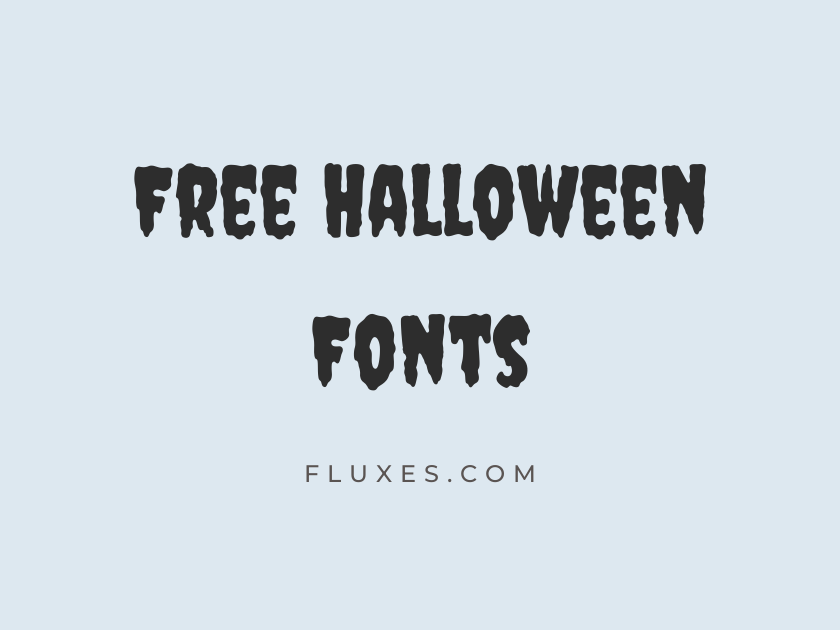
65 Best Free Halloween Fonts
Halloween design lives or dies on typography. A pumpkin graphic or a bat silhouette only gets you halfway there; it is the lettering, dripping, cracked, spidery, or carved from old tombstones, that tells a visitor they have landed on something spooky the second the page loads. Whether you are building a trick-or-treat flyer, a haunted house website, a horror movie poster, a party invitation, or a candy label, there is a genuinely excellent stash of free Halloween fonts sitting on Google Fonts, ready to download and use in personal and commercial projects alike.
This roundup pulls together horror display faces, gothic blackletter, witchy scripts, retro circus lettering, and a few elegant serifs that read as “haunted” without tipping into cartoonish clip art. Pair a loud display font for headlines with something calmer for body copy and you will have a full spooky-season type system in minutes.
1. Creepster
Creepster is the font most people picture the instant someone says “Halloween font.” Its dripping, slightly melted letterforms have become shorthand for B-movie horror posters and trick-or-treat flyers alike.
It works best big and loud, on a headline or a logo lockup; at small sizes the drips start to clog together and readability suffers, so save it for the words that need to shout.
2. Nosifer
Nosifer leans harder into gore than almost anything else on Google Fonts, with heavy dripping strokes that look lifted straight from a slasher flick title card. Use it sparingly, in short bursts of one or two words, since its density makes longer phrases hard to parse.
3. Eater
Eater looks gnawed at the edges, as if rats had been at the letterforms before you rendered them. It is a natural fit for zombie-themed invites or monster-movie branding where a little roughness sells the mood.
4. Butcherman
Named for exactly the kind of establishment you would not want to visit after dark, Butcherman combines rough, hand-inked edges with a heavy weight that reads as both playful and menacing. It suits horror-comedy projects, escape room branding, and Halloween market signage where you want personality without going fully gruesome.
5. Jolly Lodger
Jolly Lodger has a wobbly, ransom-note charm that recalls old traveling carnival banners more than modern horror. It is a great choice for a haunted circus or dark carnival theme, especially paired with warm oranges and mustard yellows.
6. Frijole
Frijole is thick, hand-carved, and a little clumsy in the most charming way, like lettering chiseled into a pumpkin by someone in a hurry. It reads well at large sizes on posters and packaging, though its chunkiness makes it a poor pick for anything longer than a headline.
7. Vampiro One
Vampiro One does exactly what its name promises: sharp, angular letterforms with pointed serifs that suggest fangs without literally drawing any. It has a comic-book energy that suits vampire-themed party invites and youth-friendly Halloween branding.
8. Wallpoet
Wallpoet’s narrow, stenciled letters feel more sci-fi than traditional horror, which makes it a smart pick for an alien-invasion or found-footage Halloween theme rather than a classic haunted mansion. It is also legible enough to hold up in UI elements and buttons, unlike most novelty horror faces.
9. Bigshot One
Bigshot One channels vintage movie-poster lettering, the kind you would see billed above a 1950s creature feature. Its rounded, confident weight makes it a strong choice for event titles and marquee-style headlines.
10. Sancreek
Sancreek is technically a western wanted-poster font, but its distressed, sun-bleached texture translates surprisingly well to autumn and Halloween projects, especially anything with a rural, corn-maze, or haunted-hayride theme.
11. Rye
Rye shares that same dusty, frontier-poster feeling as Sancreek but with a slightly more refined, symmetrical structure. It pairs nicely with a rustic Halloween palette of deep orange, black, and aged cream.
12. Special Elite
Special Elite mimics a battered manual typewriter, complete with slightly uneven baselines and ink that looks like it is running low. It is the obvious choice for found-document horror, ghost story blogs, missing-persons flyers, and any project that wants to feel like evidence rather than decoration.
Because it stays legible at body-copy sizes, it also works well as a supporting font under a louder horror display headline.
13. IM Fell English
Herein lies a tale of dread
IM Fell English
Modeled on the metal type used in old English printing houses, IM Fell English brings a genuinely antique, storybook feel to spellbook pages, tarot card copy, or a witch’s grimoire. Its irregular letterforms and old-style figures make it feel printed rather than set.
14. Metamorphous
A spell is cast beneath the moon
Metamorphous
Metamorphous has a rune-carved, fantasy-manuscript quality that suits witchcraft and occult themes better than straightforward horror. It reads well as a display face for potion labels, spell cards, and dark fantasy book covers.
15. Cinzel
Ancient curses never truly rest
Cinzel borrows its proportions from Roman capital inscriptions, giving it a weighty, monumental presence that suits gothic wedding-adjacent Halloween events, ghost tour branding, or anything wanting to feel ancient rather than cartoonish. It stays crisp even in all caps at small sizes, which is rare for a font this ornate.
16. Cinzel Decorative
Beware the crypt of the forgotten king
The decorative sibling of Cinzel adds ornamental flourishes to those same monumental capitals, making it ideal for a single dramatic headline, a crest, or an invitation to a masquerade ball. Save the plain Cinzel for anything that needs to be read twice.
17. Almendra
The manor has stood empty for decades
Almendra
Almendra is a calligraphic serif with a slightly gothic, storybook air, understated enough to use as body text on a haunted house website or ghost story blog without overwhelming the reader. It carries just enough character to feel thematic while staying comfortably readable.
18. Almendra Display
Whispers echo through the empty halls
Almendra Display
Where Almendra stays composed, Almendra Display stretches those same curves into something more theatrical and condensed, well suited to vertical signage or a poster title stacked in a narrow column.
19. UnifrakturMaguntia
Enter if you dare, mortal soul
UnifrakturMaguntia is true blackletter, the kind of dense gothic script you would expect on an ancient tome or a metal band’s album art. It instantly signals “old, dark, and serious,” but it demands generous letter spacing and large sizes to stay legible, since blackletter forms crowd together at small point sizes.
20. UnifrakturCook
Death waits patiently at the crossroads
UnifrakturCook
A slightly heavier, bolder take on classic blackletter, UnifrakturCook has thicker strokes than UnifrakturMaguntia, which makes it hold up a little better on dark backgrounds and in printed materials like invitations or wax-seal style logos.
• Styles: 1 weight (Bold)
21. MedievalSharp
A witch's coven gathers at dusk
MedievalSharp
MedievalSharp has hand-drawn, slightly rough edges that suggest parchment and candlelight rather than a polished gothic cathedral. It suits Dungeons and Dragons-adjacent Halloween events, tavern menus, and witchy branding that wants warmth alongside the spookiness.
22. Trade Winds
Sail past the shipwreck graveyard
Trade Winds
Trade Winds has an exotic, slightly eerie art-nouveau curl to it that works surprisingly well for pirate-ghost or nautical-horror themes, evoking old maps and forgotten voyages rather than straightforward gore.
23. Griffy
A wizard's warning etched in stone
Griffy
Griffy looks like it was lettered by hand in a hurry by someone slightly unhinged, with irregular baselines and a wobble that suits a mad scientist’s lab notes or a wizard’s scrawled warning sign. It is a playful pick rather than a menacing one.
24. New Rocker
Heavy metal howls at the full moon
New Rocker
New Rocker has jagged, distressed capitals that borrow heavily from metal band logos, making it a natural fit for anything with a harder, rock-show edge to its Halloween branding, like a costume party flyer for an adults-only crowd.
25. Pirata One
The pirate's ghost still guards his gold
Pirata One is a lighter, more approachable take on gothic blackletter, thin enough to stay readable in longer headlines while still carrying that unmistakable haunted-manuscript feeling. It pairs nicely with a simpler sans-serif for body copy.
26. Macondo
A story too strange to be true
Macondo
Macondo has rounded, storybook letterforms with just a touch of unevenness, giving it a fairy-tale quality that suits family-friendly Halloween content, kids’ costume guides, or spooky-but-cute party invitations.
27. Macondo Swash Caps
Once upon a haunted evening
Macondo Swash Caps
Use this one purely for decorative capital letters at the start of a title or a drop cap; its elaborate swashes are lovely in small doses and unreadable in long stretches of text.
28. Lacquer
The paint drips like old blood
Lacquer
Lacquer has a wet, glossy, slightly melting look to its bold strokes, evoking spilled paint or candle wax more than dripping blood, which makes it a versatile alternative to Creepster when you want drama without full-on horror-movie gore.
29. Shizuru
A little witch stirs her potion
Shizuru
Shizuru is bouncy and playful, with rounded terminals that keep it firmly in cute-Halloween territory rather than horror. It suits kid-friendly trick-or-treat graphics, candy packaging, and cheerful party invites.
• Language support: Latin, Japanese
30. Fascinate
A séance begins at midnight sharp
Fascinate borrows the geometric confidence of art deco lettering and adds an unsettling, slightly alien symmetry to it, which makes it a great fit for a vintage seance or seance-parlor theme, especially in gold on black.
31. Fascinate Inline
Follow the candlelight to the parlor
Fascinate Inline
The inline version keeps that same art deco skeleton but hollows out the strokes, giving it a lighter touch that works well layered over a solid Fascinate headline for a two-tone poster effect.
32. Diplomata
A seal from the department of the damned
Diplomata
Diplomata has a formal, stamped-official quality, almost like currency or a wax seal, which makes it an unexpected but effective choice for mock certificates, “haunted property deed” props, or escape room documents.
33. Vast Shadow
A shadow moves where none should be
Vast Shadow is a plain, sturdy slab with a name that suits it, dependable and grounded rather than flashy, making it a solid choice for a horror-adjacent brand that wants restraint over spectacle.
34. Rammetto One
Pumpkins glow along the porch steps
Rammetto One is rounded, bold, and friendly, closer to a jack-o’-lantern’s grin than a monster’s snarl. It works well on candy bags, kids’ event posters, and anything wanting Halloween warmth over dread.
35. Bilbo
Signed in ink by the ghost herself
Bilbo
Bilbo is a loose, looping handwritten script with an old-fashioned, slightly gothic slant, nice for a “handwritten note left by a ghost” effect on invitations or place cards.
36. Snowburst One
Frost creeps over the haunted graves
Snowburst One
Snowburst One has thin, icy, slightly futuristic strokes that suit a winter-crossing-into-Halloween theme, like a haunted ice rink or a ghost story set in the cold.
37. Modak
Trick-or-treat bags full of orange candy
Modak is a bold, rounded display face with a confident, almost inflated look that reads as friendly rather than frightening, a good match for candy branding and cheerful trick-or-treat signage.
38. Ewert
Ink-black bats circle the tower
Ewert
Ewert’s heavy, inky strokes look like they were stamped with a woodblock print, giving it an old horror-comic energy that suits zines, gig posters, and DIY Halloween event flyers.
39. Emblema One
Property of the paranormal society
Emblema One
Emblema One has a stenciled, official-looking structure that works nicely for badges, crests, or “haunted investigation unit” style branding where you want a slightly militaristic edge.
40. Barrio
Zombies shuffle down the abandoned street
Barrio
Barrio is loud, graffiti-inspired, and a little chaotic, a good fit for an urban zombie apocalypse theme or a punk-flavored Halloween party where polish is not the point.
41. Bungee Shade
Neon skeletons dance all night
Bungee Shade adds a hard drop shadow to bold retro capitals, giving it a glowing, neon-sign feel that suits a modern, urban Halloween party rather than a period haunted house. It looks especially good in orange on black.
42. Bungee Inline
Ride the last train to nowhere
The inline sibling of the Bungee family swaps the drop shadow for a hollow outline, which works well as a lighter complement to Bungee Shade on the same poster or event page.
43. Codystar
A faint signal from the other side
Codystar
Codystar’s widely spaced, thin capitals feel faint and ghostly rather than bold, useful for subtitles or eyebrow text above a louder horror headline, evoking something fading in and out of view.
• Styles: 2 weights (Light, Regular)
44. Nova Square
Contact has been lost in the fog
Nova Square
Nova Square has a blocky, slightly glitchy geometry that suits a sci-fi horror theme, alien abductions, or a haunted-technology angle better than a classic gothic haunted house.
45. Monofett
Static hums through the abandoned station
Monofett
Monofett looks corroded and blotchy, as if the letters had been left out in acid rain, which makes it an effective, slightly unpleasant-on-purpose choice for horror branding that wants to feel decayed rather than decorative.
46. Rock Salt
Scrawled warning: do not go inside
Rock Salt is a scratchy, hurried handwriting style that reads like a warning note left by someone in a panic, useful for prop documents, sticky-note style graphics, or informal event signage.
47. Permanent Marker
Beware of ghosts, written in marker
Permanent Marker is bold, casual, and instantly familiar, the digital equivalent of a Sharpie scrawled across cardboard. It suits DIY Halloween projects, classroom activities, and anything that wants a homemade, approachable feel.
48. Kranky
A spider spins its web at midnight
Kranky
Kranky’s thin, spindly, slightly wobbly strokes genuinely look like they were spun by a spider rather than typed, which makes it one of the most literally fitting fonts on this whole list for a cobweb or creepy-crawly theme.
It struggles at very small sizes since the thin strokes thin out further, so keep it to headlines and short labels.
49. Irish Grover
The jack-o'-lantern grins in the dark
Irish Grover
Irish Grover has a bouncy, slightly cartoonish weight that keeps it on the friendlier end of the Halloween spectrum, good for children’s event materials and playful pumpkin-carving graphics.
50. Londrina Sketch
A hasty sketch of the haunted house
Londrina Sketch
Londrina Sketch looks like bold marker strokes drawn quickly and imperfectly, giving posters and flyers a raw, hand-drawn energy that suits a DIY haunted house or student film project.
51. Grenze Gotisch
The crypt door creaks slowly open
Grenze Gotisch
Grenze Gotisch offers a more restrained, modern take on blackletter, angular and condensed without tipping into the full density of traditional Fraktur. It is a good middle ground for designers who want a gothic feeling without sacrificing much legibility.
52. Metal Mania
Screams echo through the abandoned asylum
Metal Mania
Metal Mania is exactly what it sounds like, jagged, hand-inked letters straight off a heavy metal flyer, ideal for horror-punk event branding or anything wanting an aggressive, underground edge.
53. Rubik Wet Paint
Blood-red paint drips off the wall
Rubik Wet Paint
Part of Google’s playful Rubik variable-effects family, Wet Paint gives bold geometric letters a dripping, liquid coating that reads as fresh horror-movie gore in a cleaner, more contemporary style than older drippy fonts like Creepster.
• Language support: Latin, Latin Extended, Cyrillic, Cyrillic Extended, Hebrew
54. Rubik Glitch
The signal breaks apart at midnight
Rubik Glitch
Rubik Glitch fractures its letterforms into scan-line style fragments, a strong pick for a haunted television, cursed video game, or analog-horror themed project.
• Language support: Latin, Latin Extended, Cyrillic, Cyrillic Extended, Hebrew
55. Rubik Beastly
Something monstrous lurks in the woods
Rubik Beastly
Rubik Beastly warps its bold letters with claw-like notches and uneven edges, giving it a genuinely creature-like quality that suits monster and cryptid themed content.
• Language support: Latin, Latin Extended, Cyrillic, Cyrillic Extended, Hebrew
56. Rubik Distressed
Old newspaper clippings tell the story
Rubik Distressed
This variant roughens up the clean Rubik geometry with a worn, weathered texture, useful for anything wanting an aged, found-object feel without switching to a full handwritten script.
• Language support: Latin, Latin Extended, Cyrillic, Cyrillic Extended, Hebrew
57. Rubik Spray Paint
A warning spray-painted on the fence
Rubik Spray Paint
Rubik Spray Paint mimics loose aerosol lettering, a good match for an urban legend or abandoned-building horror theme where graffiti is part of the story.
• Language support: Latin, Latin Extended, Cyrillic, Cyrillic Extended, Hebrew
58. Rubik Puddles
A puddle of something dark spreads
Rubik Puddles
Rubik Puddles pools ink at the base of each letter, giving it a slower, heavier drip than Wet Paint, well suited to a slow-building dread rather than a jump scare.
• Language support: Latin, Latin Extended, Cyrillic, Cyrillic Extended, Hebrew
59. Rubik Burned
The old house burned down years ago
Rubik Burned
Rubik Burned chars the edges of its bold letters, a fitting choice for anything referencing fire, cursed objects, or the aftermath of a disaster.
• Language support: Latin, Latin Extended, Cyrillic, Cyrillic Extended, Hebrew
60. Rubik Storm
Lightning cracks over the witch's tower
Rubik Storm
Rubik Storm scatters its letterforms with jagged, electric fragments, useful for a Frankenstein’s-laboratory theme or any headline that wants a jolt of energy.
• Language support: Latin, Latin Extended, Cyrillic, Cyrillic Extended, Hebrew
61. Rubik Dirt
Freshly dug graves line the yard
Rubik Dirt
Rubik Dirt textures its letters with a gritty, earthy speckle that suits graveyard and cemetery themed graphics especially well.
• Language support: Latin, Latin Extended, Cyrillic, Cyrillic Extended, Hebrew
62. Rubik Moonrocks
Strange lights hover over the cemetery
Rubik Moonrocks
Moonrocks gives its bold letters a pitted, cratered surface, an offbeat but effective choice for an alien-abduction or otherworldly spin on Halloween.
• Language support: Latin, Latin Extended, Cyrillic, Cyrillic Extended, Hebrew
63. Chonburi
Candlelight flickers in the old chapel
Chonburi
Chonburi is thick, confident, and slightly retro, with rounded terminals that give it warmth despite its heavy weight; it reads well on packaging and event signage that wants boldness without going full horror.
64. Girassol
Autumn leaves cover the crooked path
Girassol
Girassol has a soft, rounded, slightly vintage sign-painting quality that suits an autumn harvest festival angle on Halloween more than a scary one, think pumpkin patches over haunted houses.
65. Freckle Face
A friendly ghost waves from the window
Freckle Face
Freckle Face is bubbly and round, built for cheerful, kid-facing Halloween content like trick-or-treat maps, classroom decorations, and candy labels rather than anything meant to unsettle.
How to pair and use these fonts
Stick to one loud, decorative display font per project and let it do the heavy lifting on headlines and titles only.
For body copy, reach for something calmer and more legible, like Almendra, Special Elite, or a plain system sans-serif, so guests can actually read your event details.
Blackletter and gothic faces like UnifrakturMaguntia need extra letter spacing and larger sizes to stay readable, especially on screens.
Drippy and distressed display fonts almost always work better in all caps or short phrases than in full sentences.
Halloween is one of the few times a year when typography is allowed to be theatrical, and this list should cover everything from a subtle autumn harvest flyer to a full gore-soaked movie poster. Download a handful, drop them into a mockup, and see which one actually makes your project feel haunted.